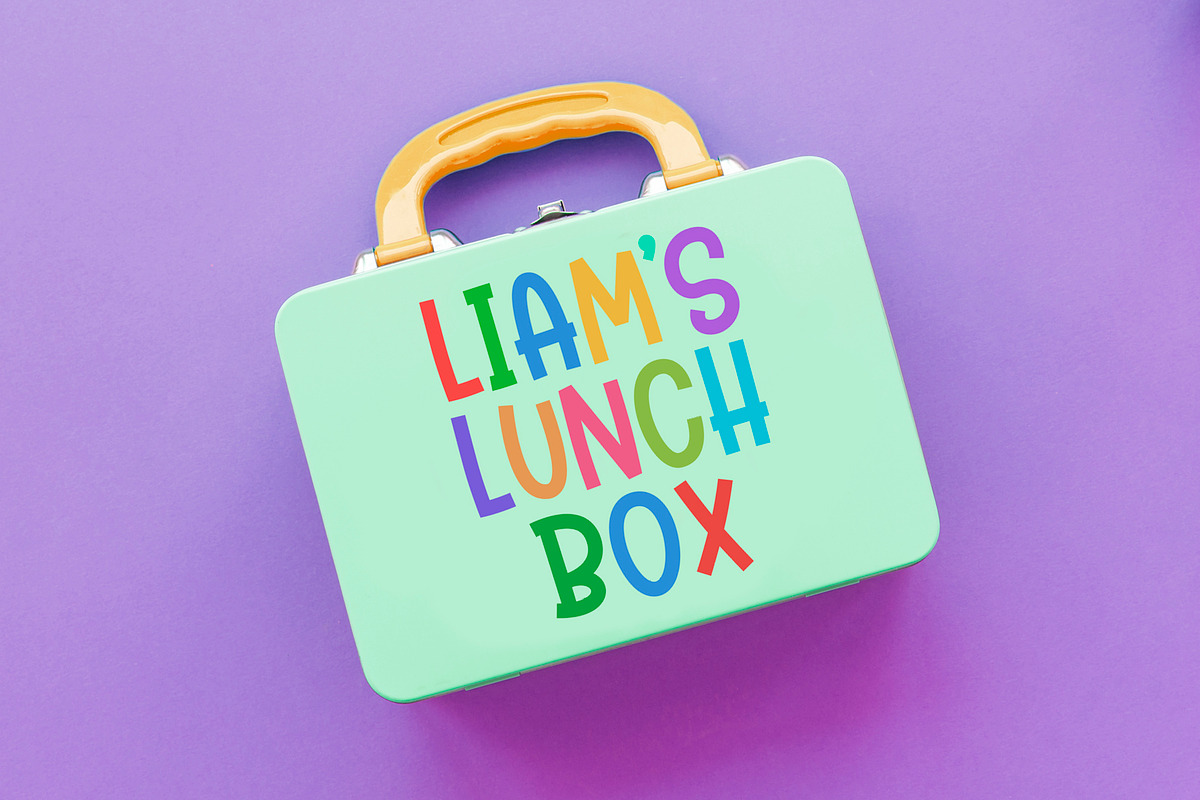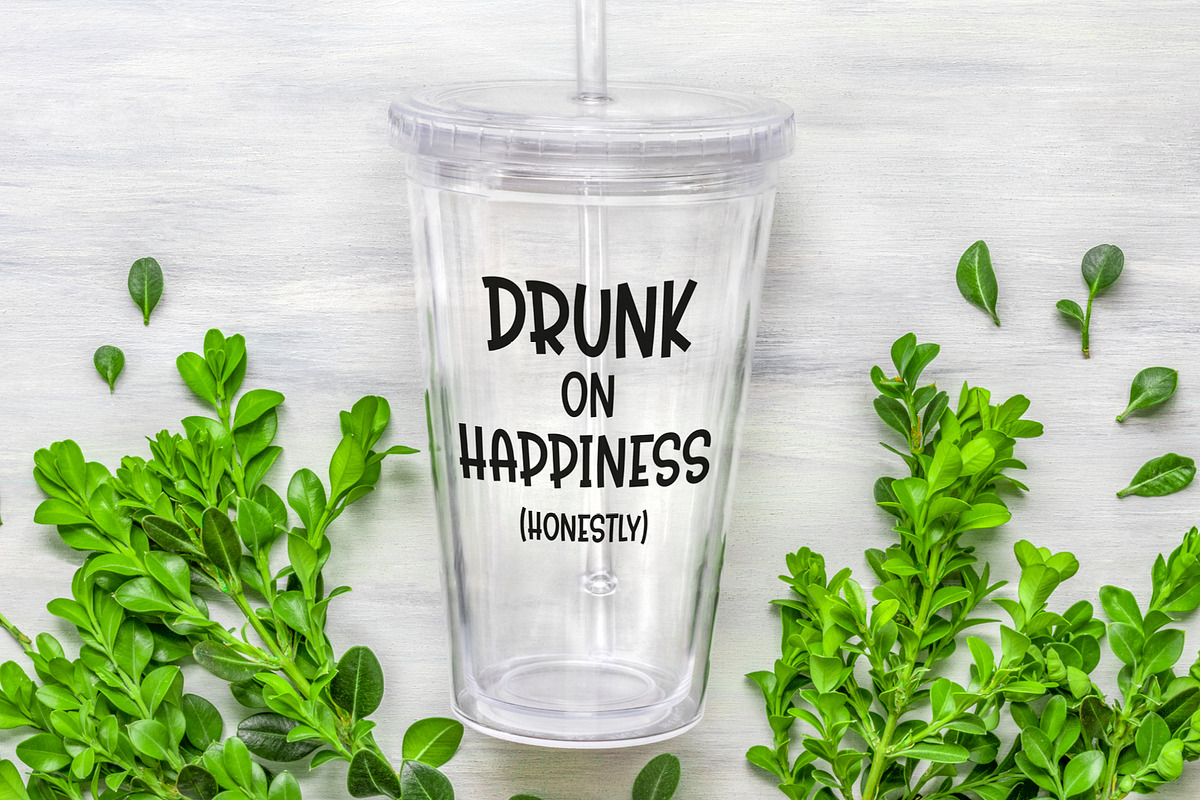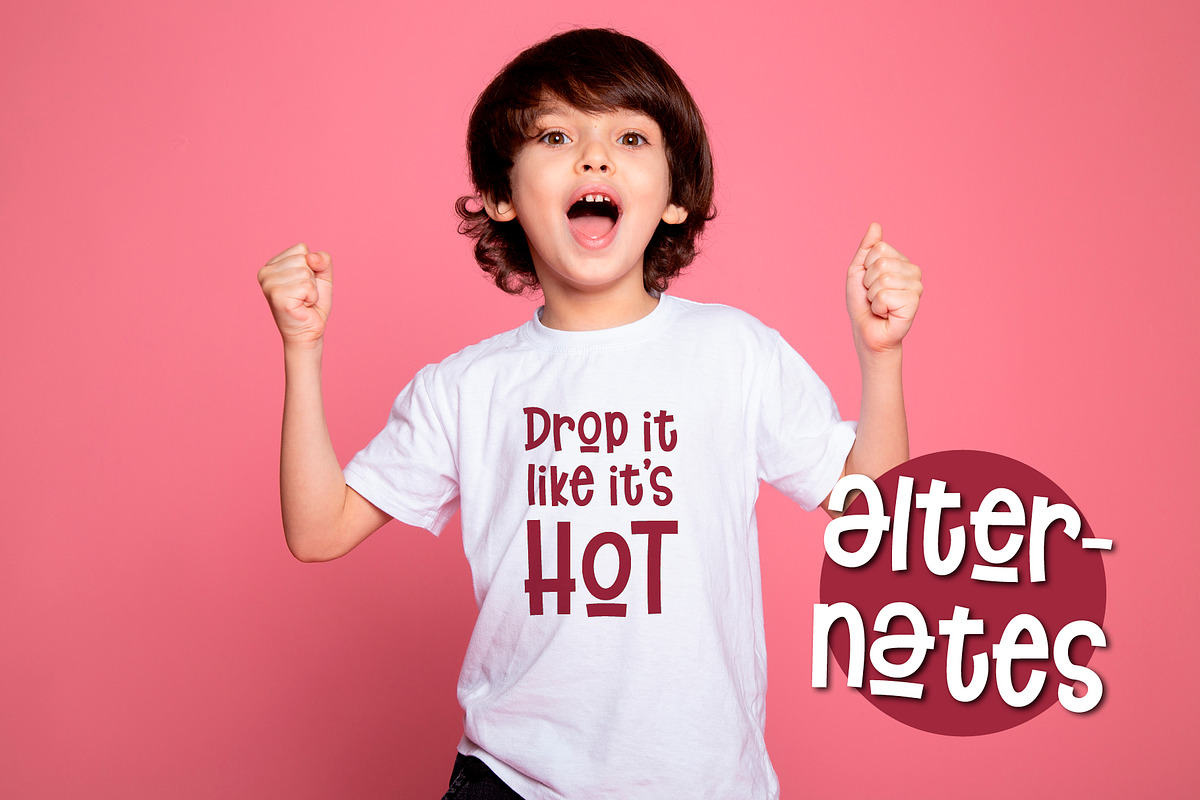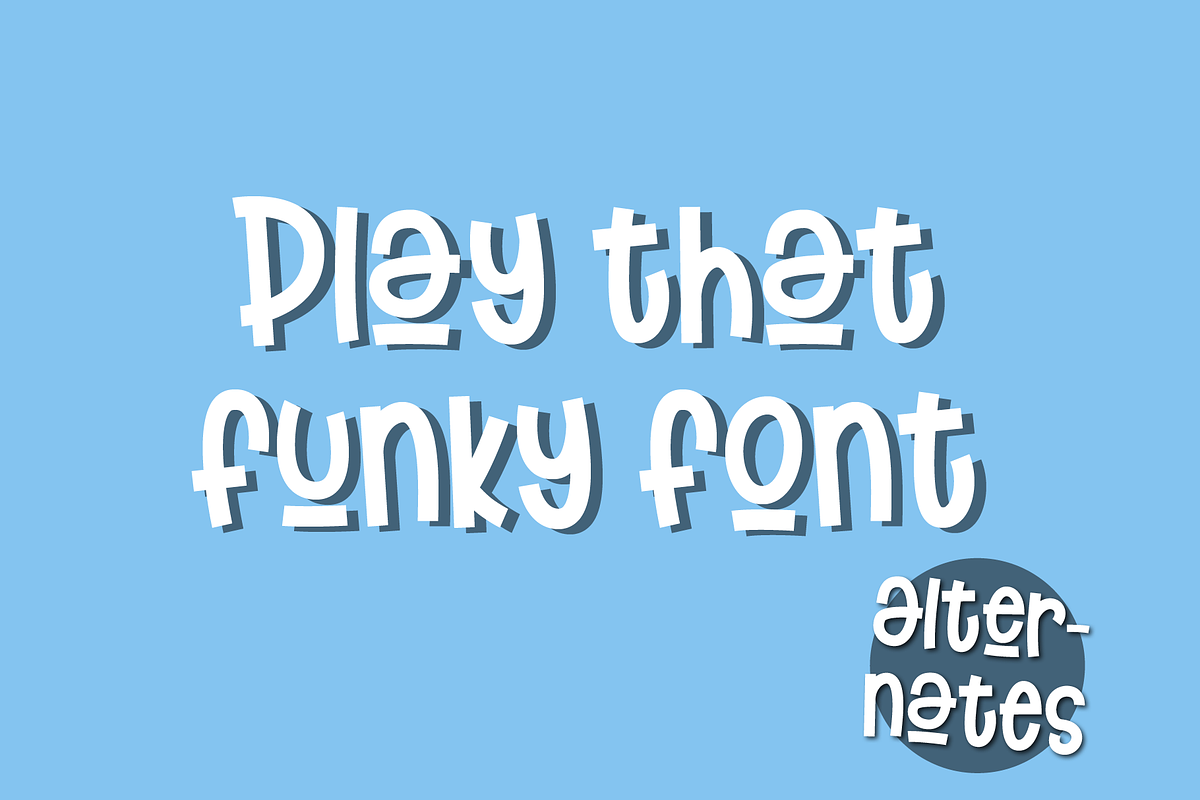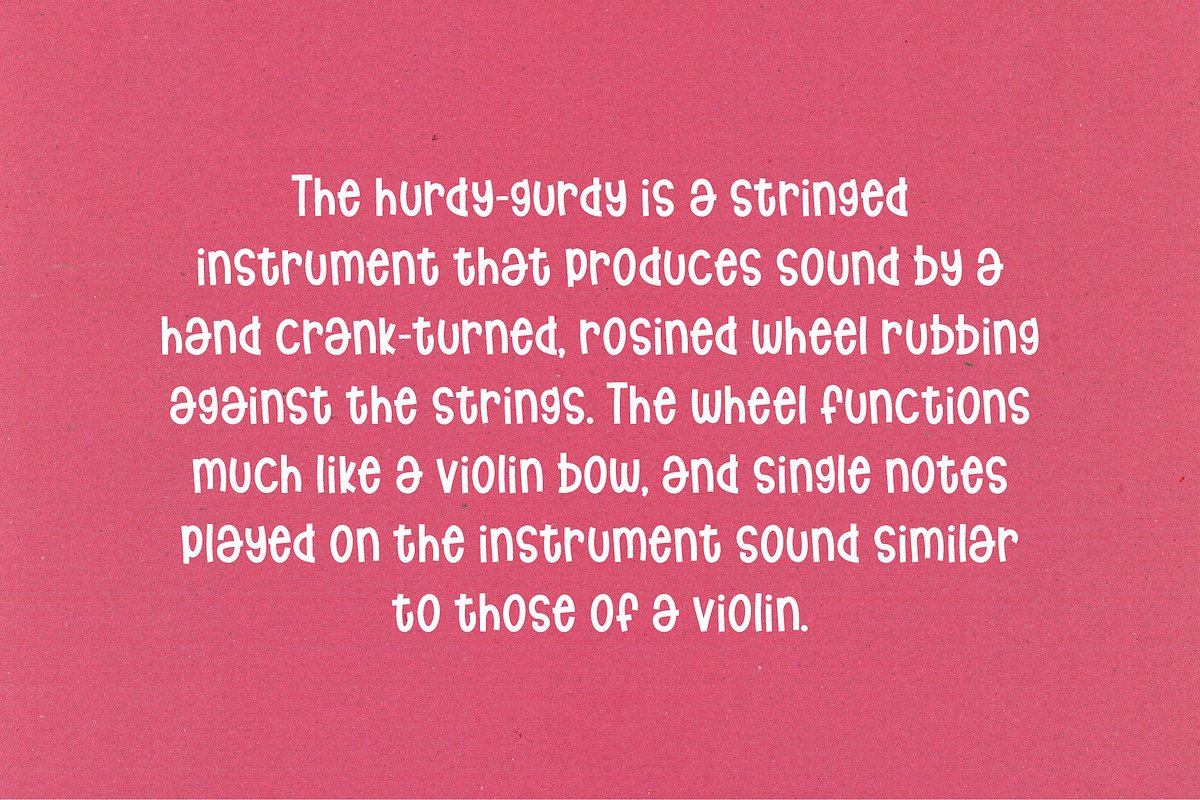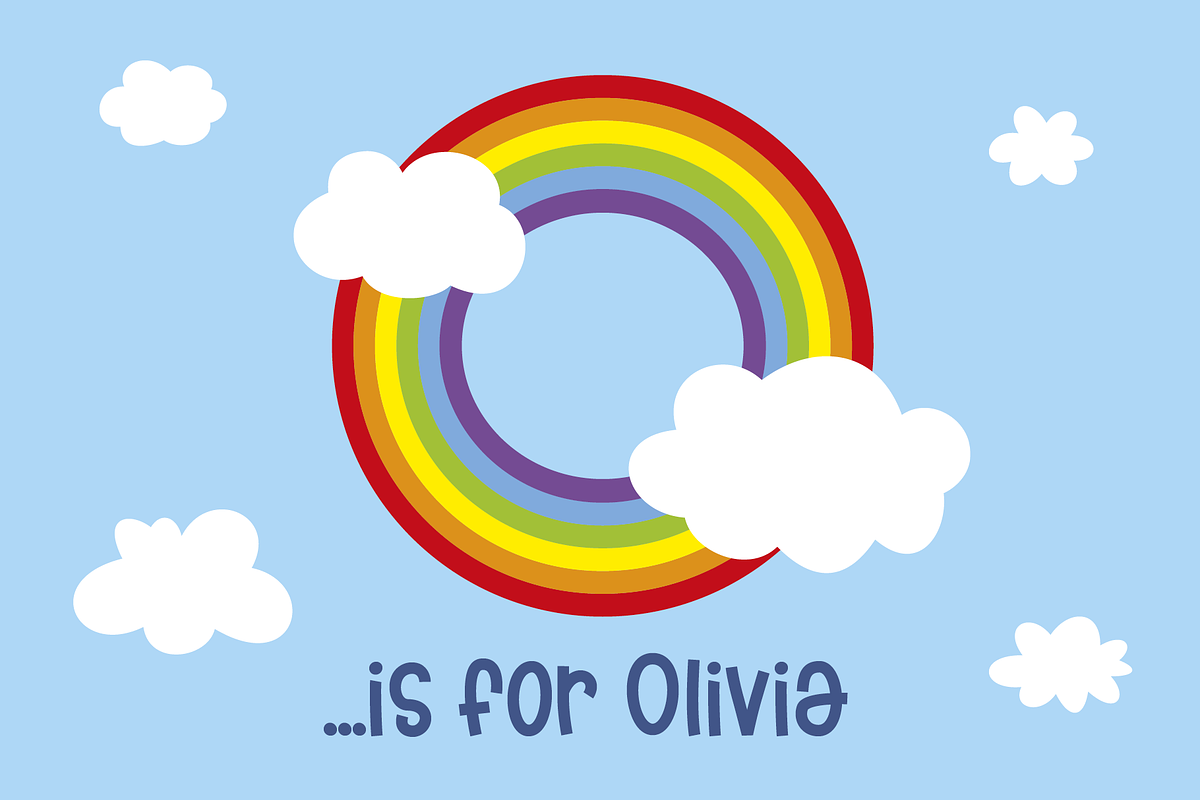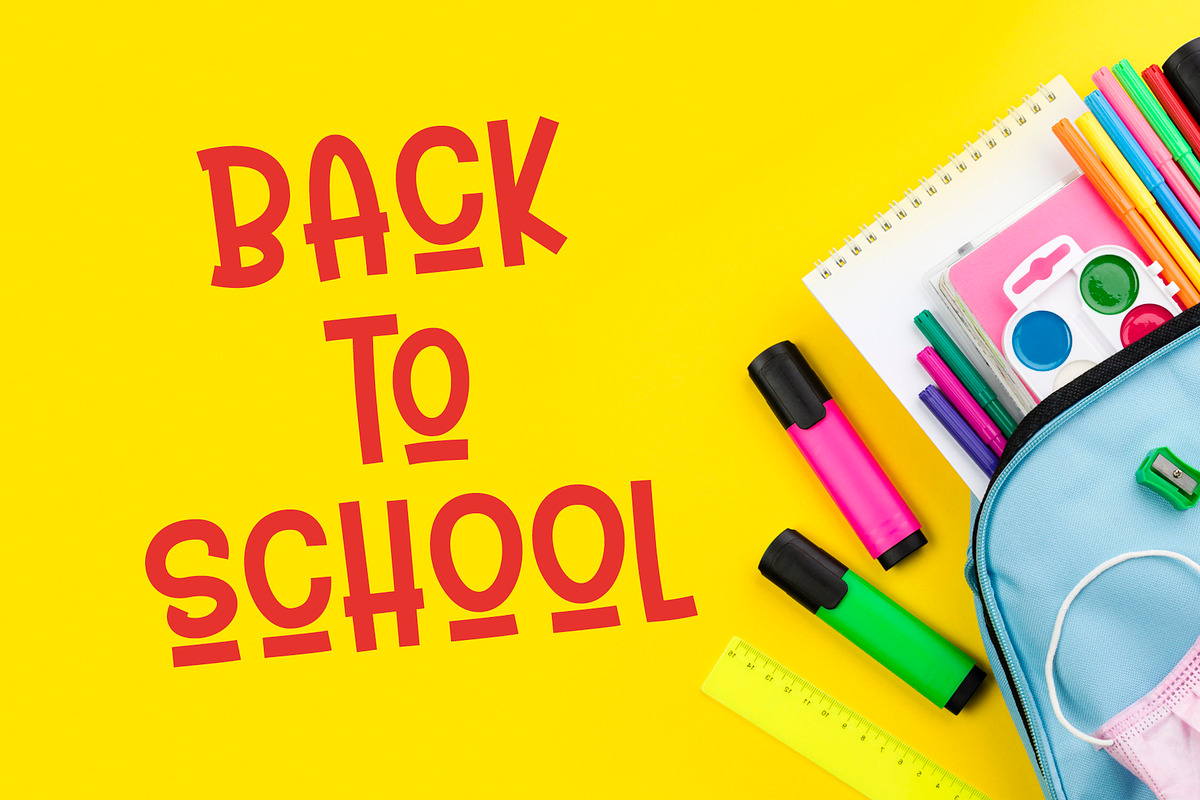
Hurdy Gurdy - a funtastic font
Hurdy Gurdy is a magnificent, fun font. A cartoon font, a comic book font... a font for all things fun! Great for children themed designs and products but also just as good for an older demographic where some much needed fun is required! Looks fantastic on a t-shirt, a tumber or in a quote. Or use for a distinctive logo or headline.
Hurdy Gurdy is designed to look great in all UPPERCASE, all lowercase or a Mix Of Both! Some extra underlined alternates are also provided.
OVER 350+ Glyphs!!!! Full multilingual European language support.